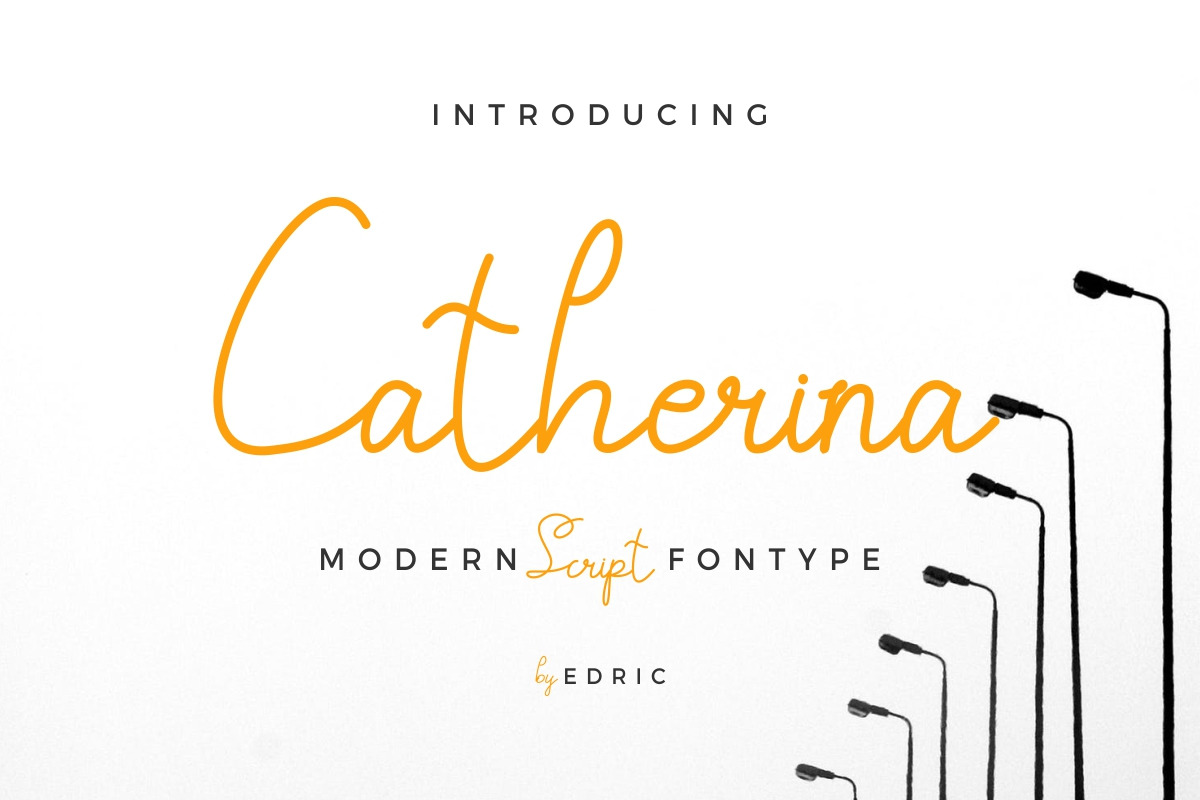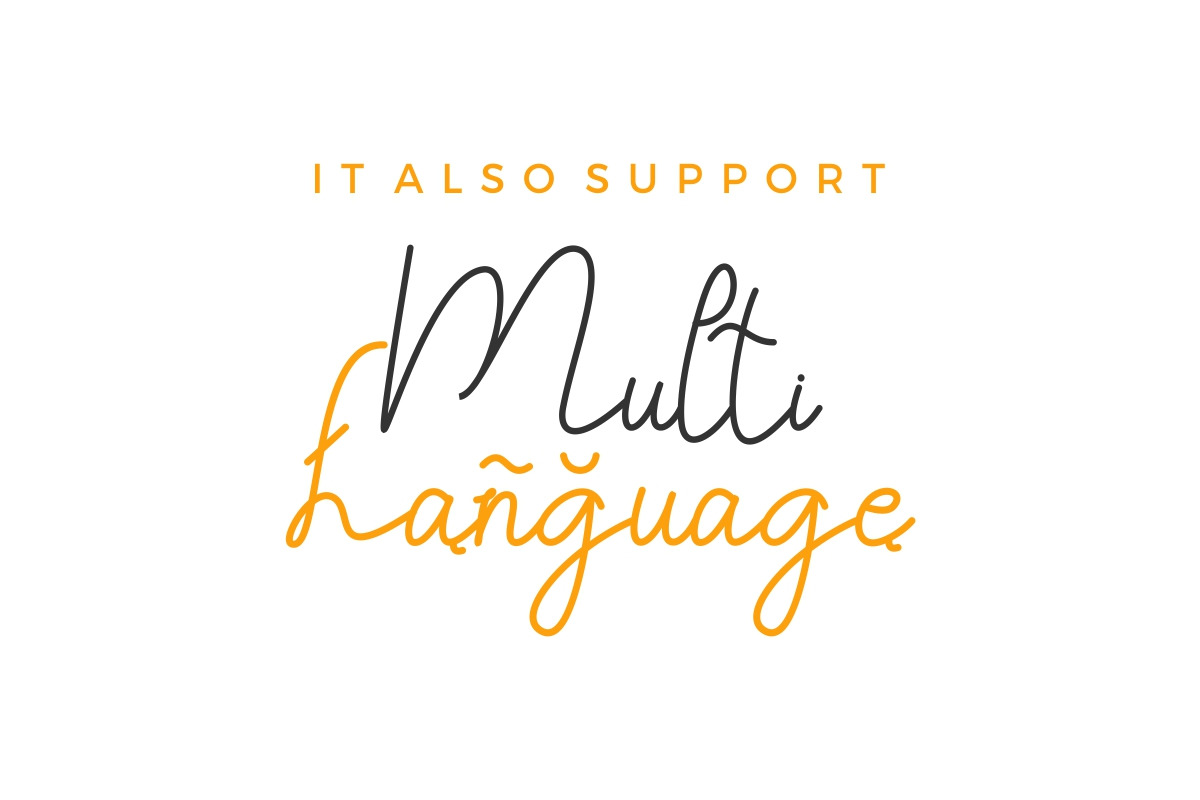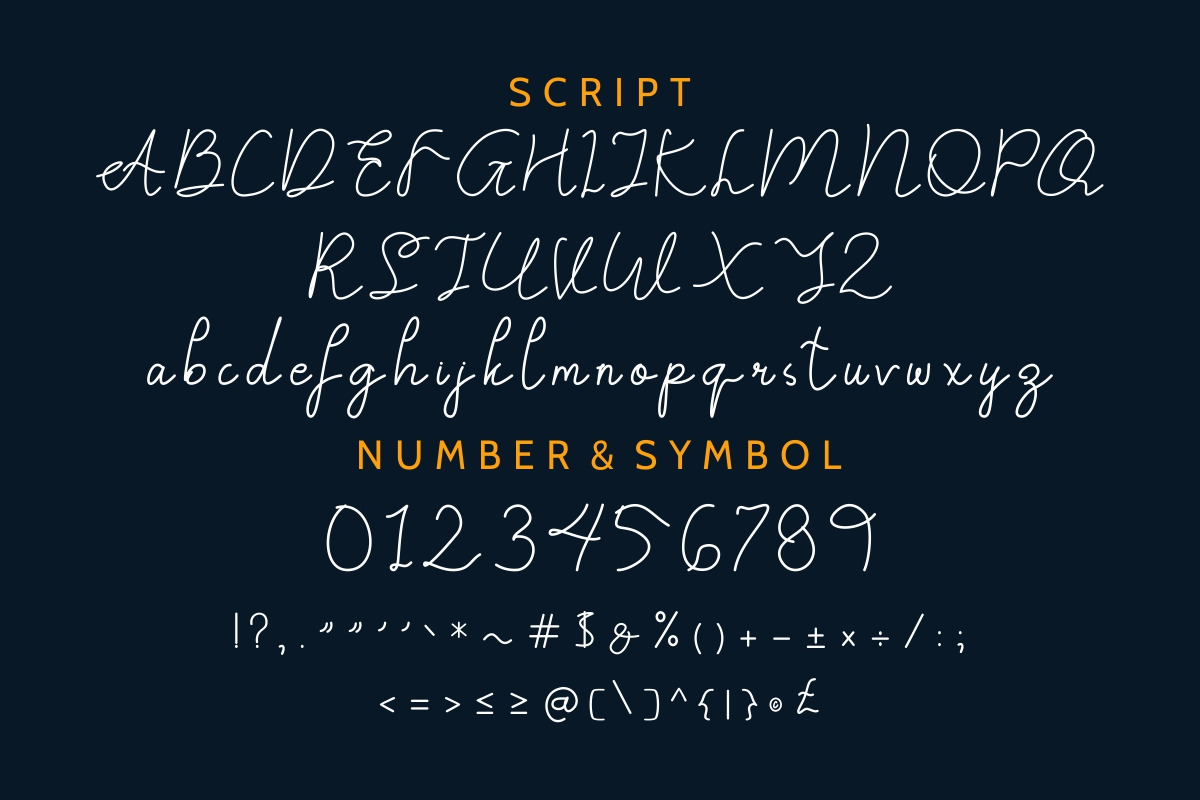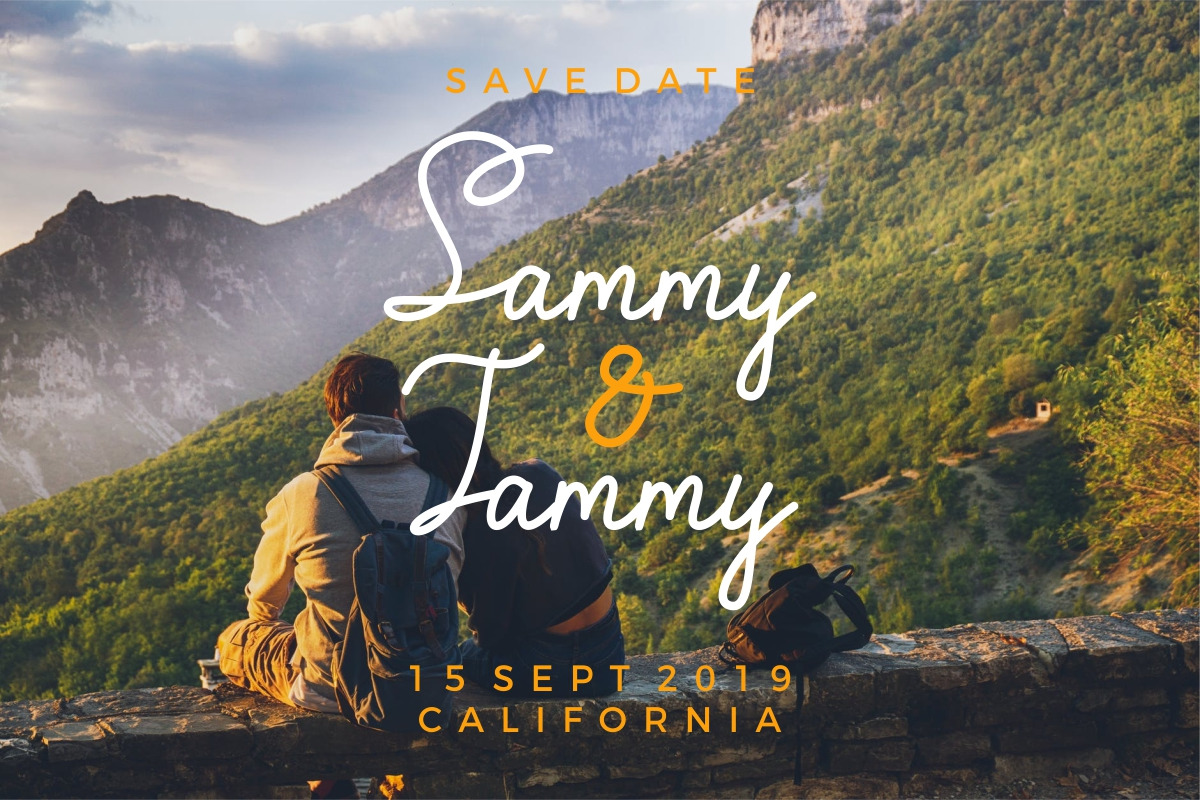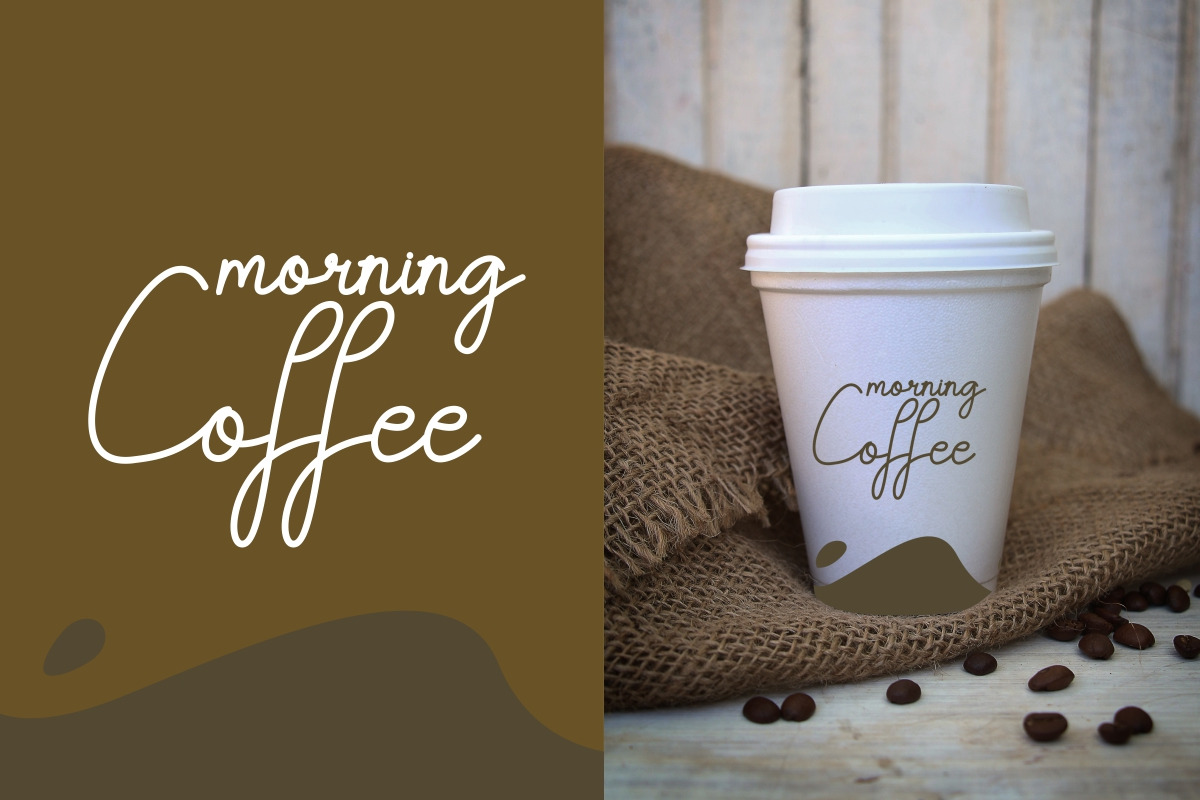
Catherina Script Font
Whatsup Everyone! Introducing our newest font : Catherina ! This is a new script handwriting feminine style font. It has a fresh, elegant and stylish glyph. You will get : - OTF - TTF - Woff
Two Styles : Regular and Bold. Also Support many international languages